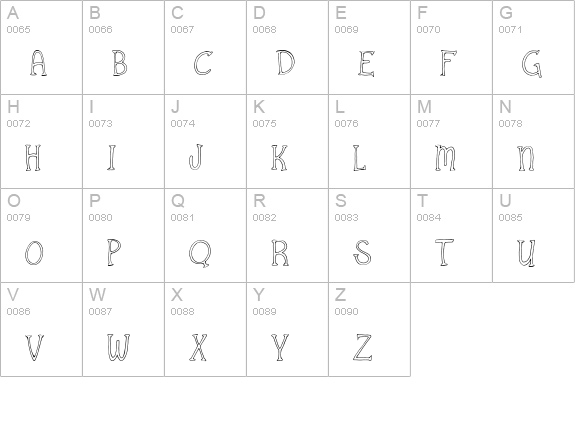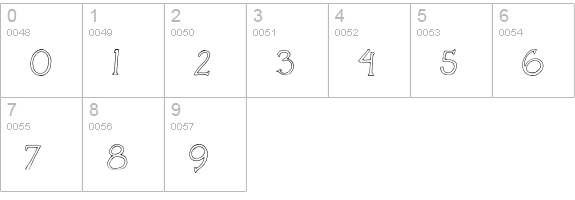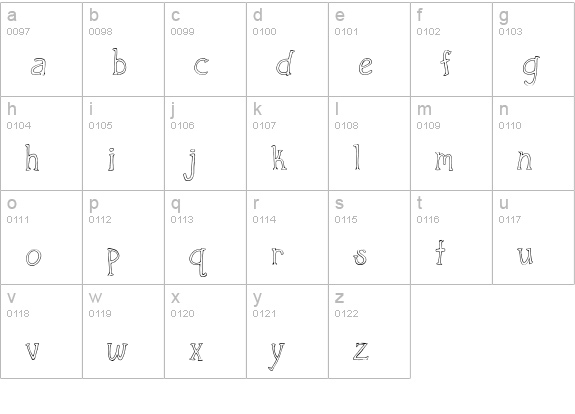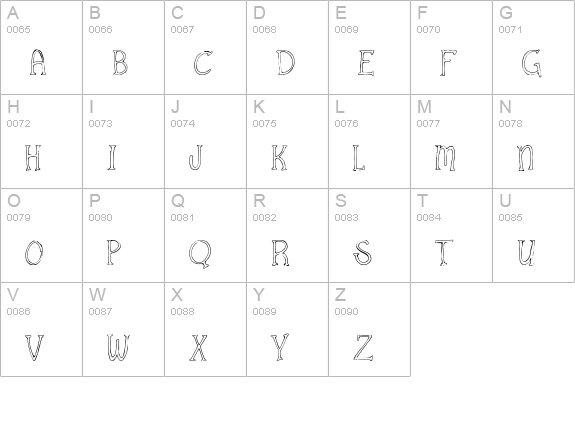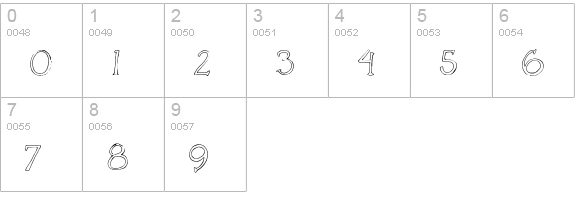
CK Sneaky Snake Plain Font Details
The CK Sneaky Snake Plain font is a charming and whimsical typeface that exudes playfulness and creativity. With its smooth lines and sleek design, this font is perfect for adding a touch of fun to any project. Whether you're designing a poster, invitation, or logo, the CK Sneaky Snake Plain font will bring a unique and eye-catching element to your work. Best of all, this font is available for free download at FontsMarket.com. Simply head to the website and start incorporating the CK Sneaky Snake Plain font into your designs today. Embrace the playful spirit of this font and watch as your creations come to life with a touch of whimsy and flair.